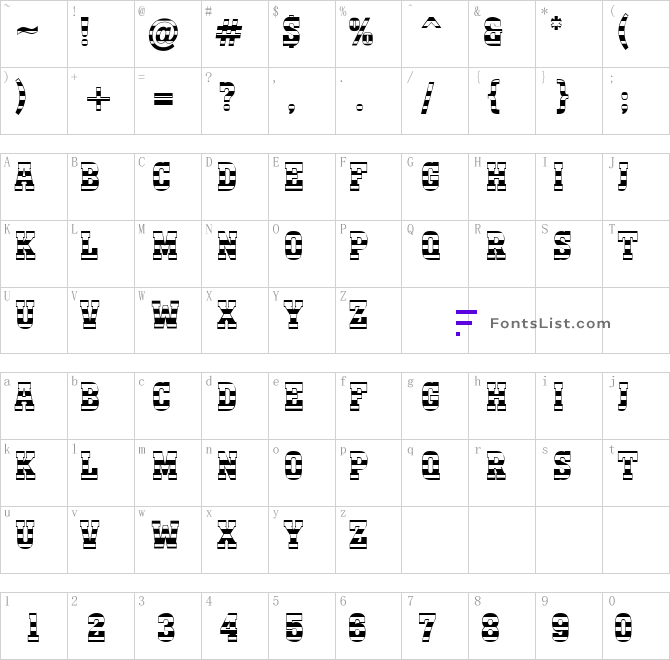
a_MonumentoTitulStrNr.ttf is a very beautiful artistic font, a_MonumentoTitulStrNr.ttf is widely used in the design and printing of various books and pictures,a_MonumentoTitulStrNr.ttf has a strong visual impact,a_MonumentoTitulStrNr.ttf is a commonly used font in newspapers, magazines and books, and is used in posters, e-commerce Poster design, store design, logo design, font design and other fields.a_MonumentoTitulStrNr.